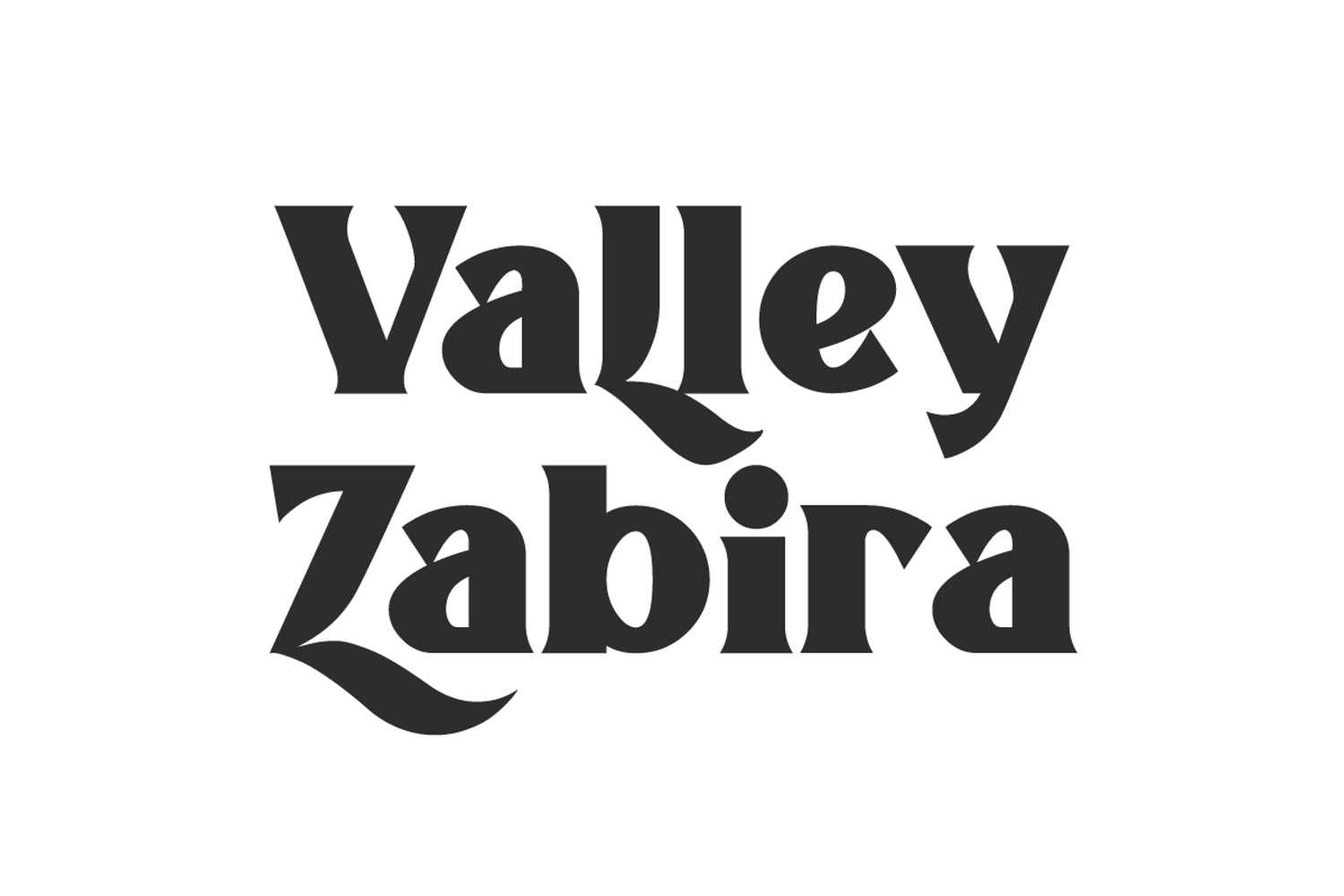
valley zabira
Valley Zabira Font is a bold display font that has uniqueness in each letter. The confident appearance of the Alternate characters makes it very strong to use in any project, such as banners, billboard, blogs, brand logo, brochure, embossed design, headers, label tag, mockup, packaging, poster, quotes, signage, stationery, stickers, template, titles, website, and more.
Valley Zabira Font includes full set of Uppercase and Lowercase Basic Characters, Numbers, Punctuation, Symbols and Alternate. This serif display font has a distinct appeal, the strong curves are very clear with the thickness of each letter. It will make it suitable for beauty clinic, cafe, graphic design, restaurant, skincare, spa salon, and more.